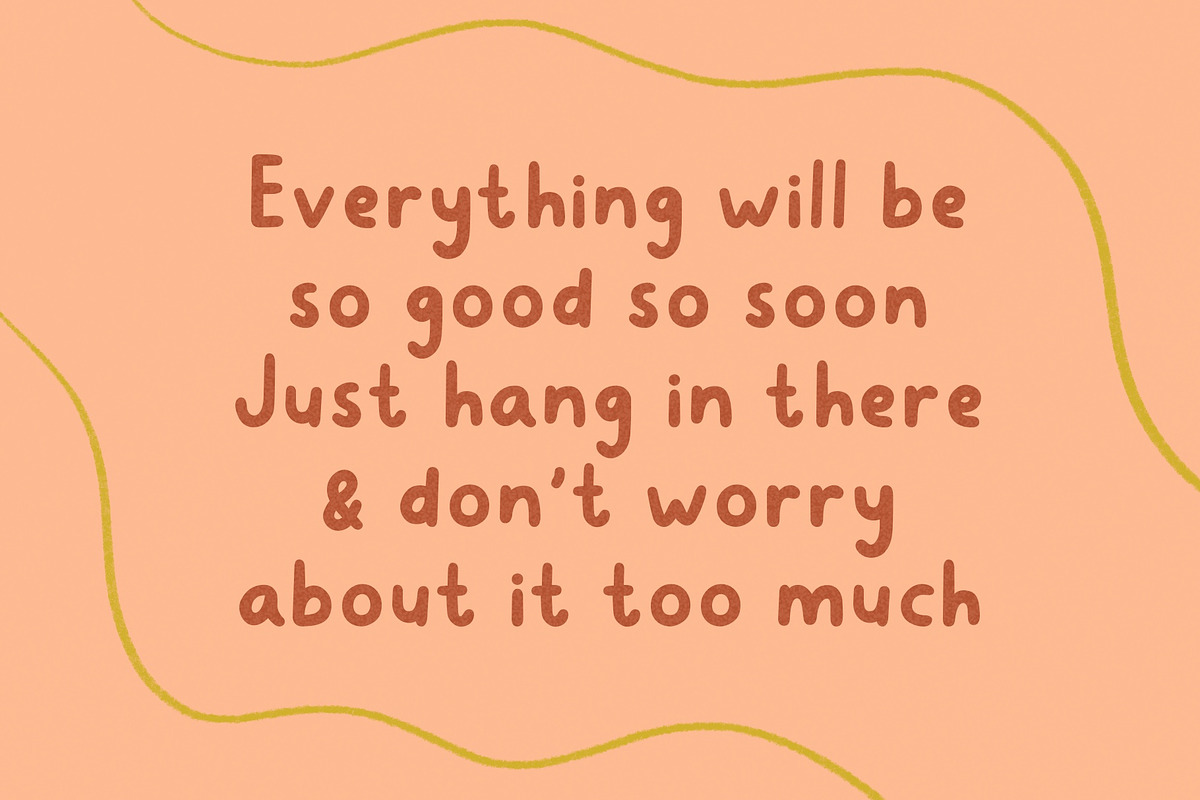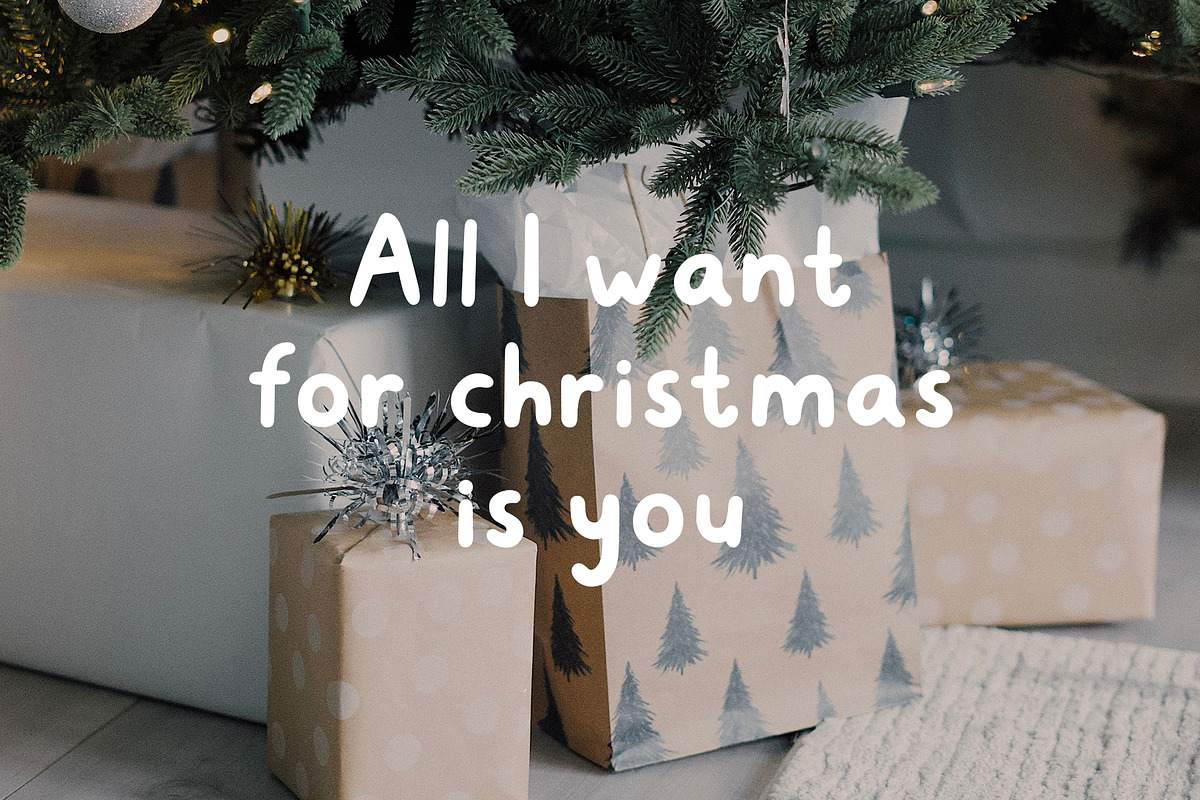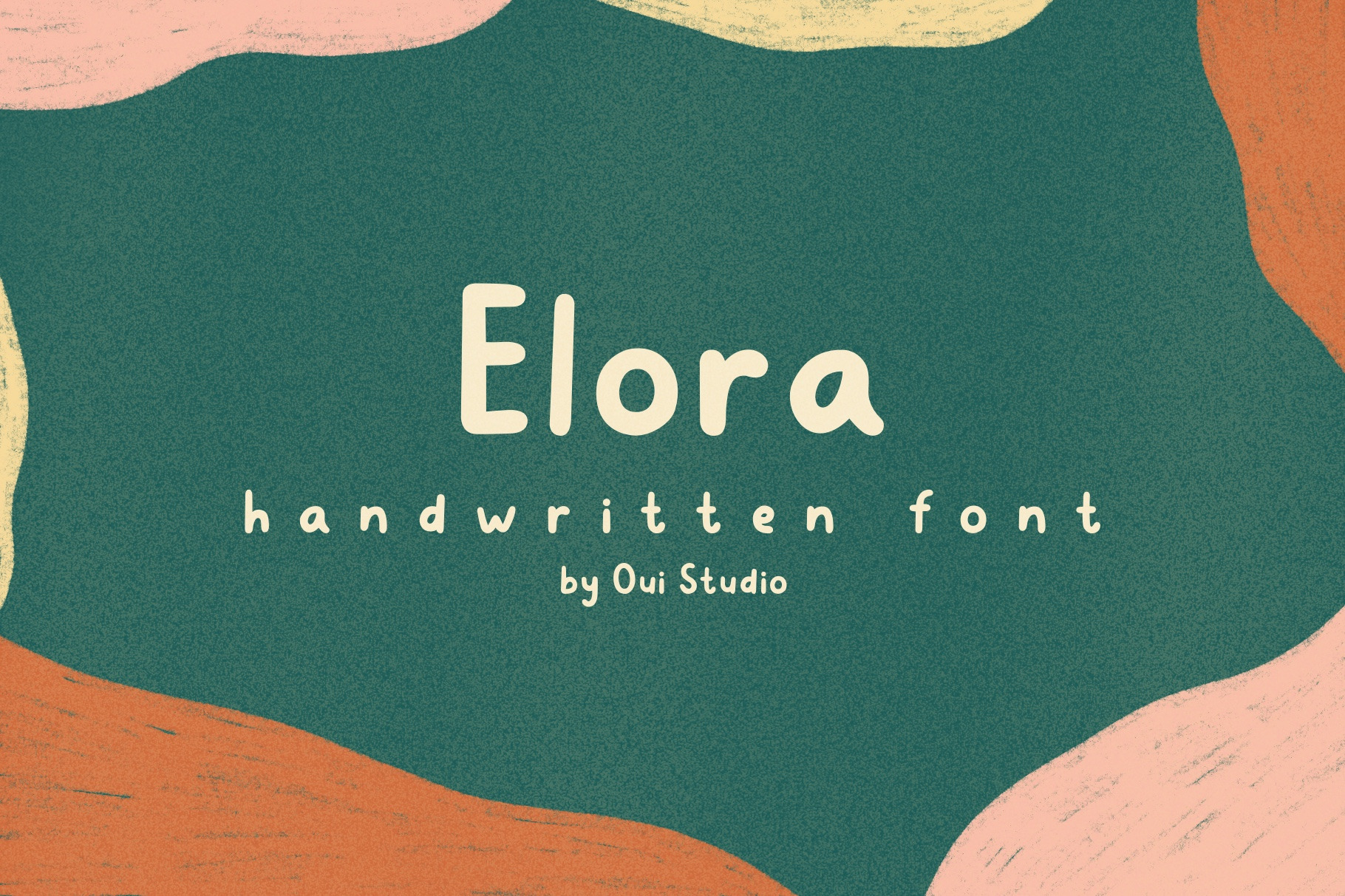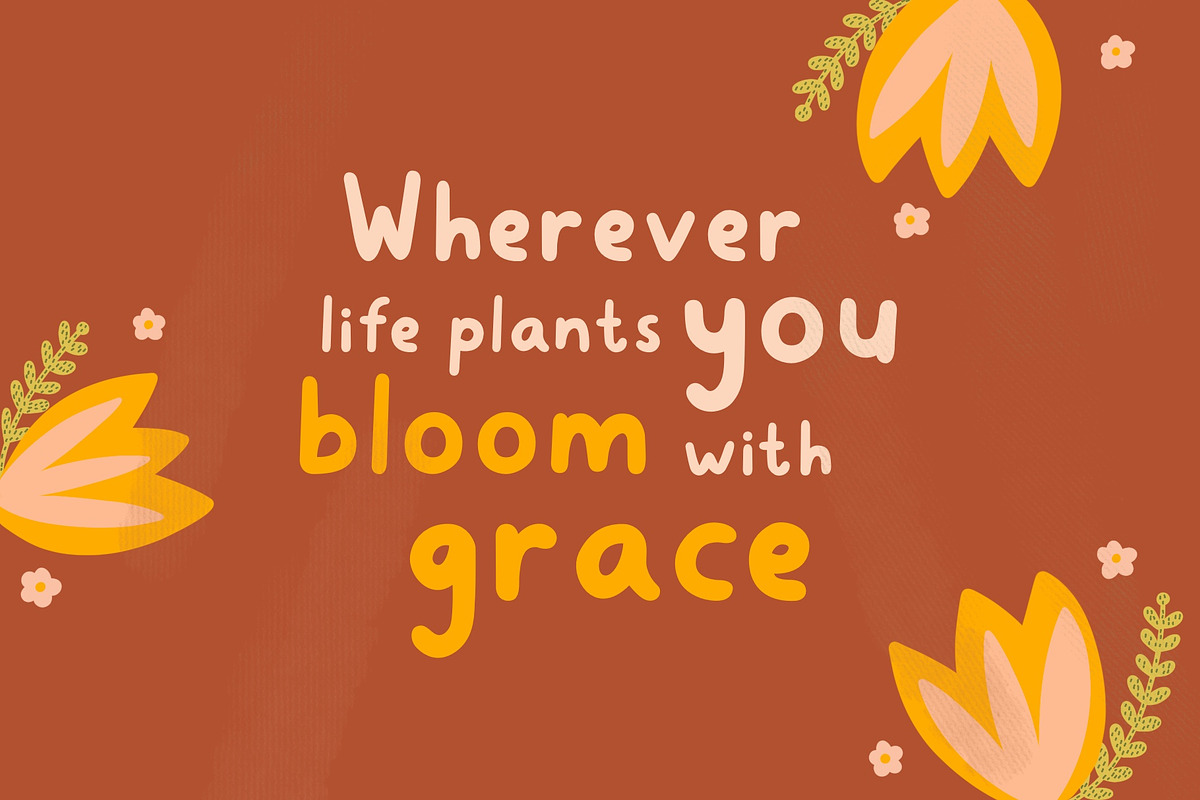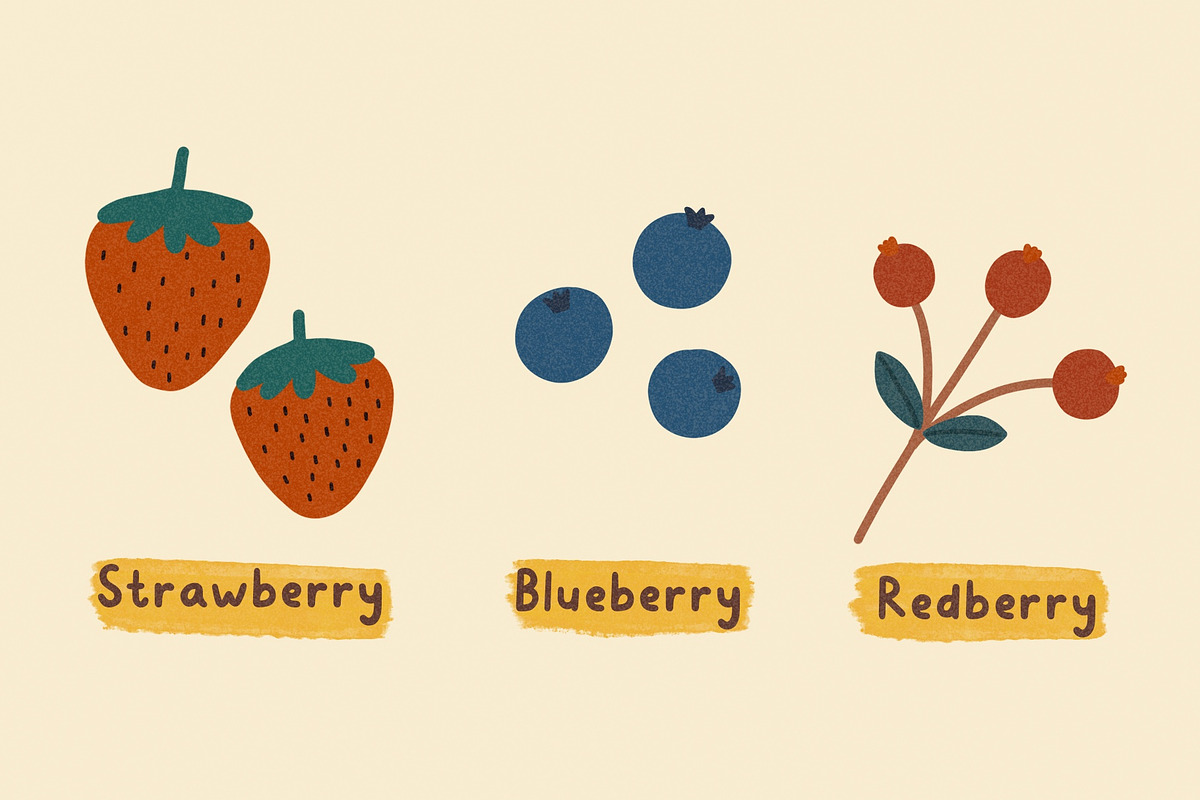
Elora Handwritten Font
Say Hello to 'Elora' - a pure and cute handwritten font. Give a kids touch for your design, this font is perfectly suited for kids brand, children book, signature, stationary, and more.